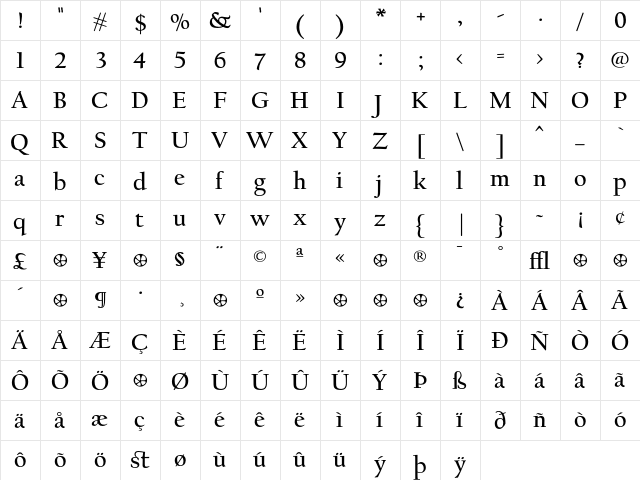
FBCalifornian Bold
Design Context for FBCalifornian Typeface
FBCalifornian takes a measured approach to typography — its balanced proportions and neutral character make it a reliable workhorse for both digital and print work. The heavy weight commands attention and anchors typographic hierarchies.
Pro Tip: Use FBCalifornian in both headline and body roles to test its range before committing to a single application.